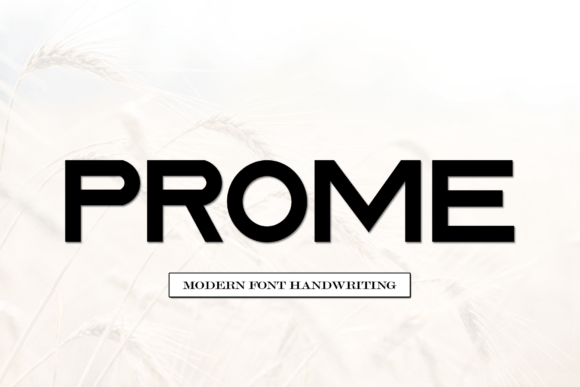
In a world brimming with digital monotony, Prome Font emerges as a beacon of creativity, a font family that breathes life into your designs, transforming them into captivating expressions of individuality. Embrace Prome Font, the sans serif font that embodies the essence of retro charm, a font that transports you to an era of elegance and sophistication.
With its meticulously crafted curves and timeless appeal, Prome Font is the perfect choice for those seeking a font that speaks to their artistic soul. Its versatility extends far beyond mere aesthetics; Prome Font is a storyteller, a font that narrates tales of love, joy, and heartfelt emotions. Its delicate strokes evoke a sense of nostalgia, reminiscent of handwritten letters that carried the weight of secrets and dreams.
Allow Prome Font to grace your wedding invitations, imbuing them with an air of timeless romance. Let your thank-you cards blossom with gratitude, expressed in the elegant lines of Prome Font. Transform your quotes into profound statements, resonating with the depth of human experience. Create greeting cards that carry the warmth of your sentiments, adorned with the charm of Prome Font.
Logos and business cards take on a new level of sophistication when adorned with Prome Font. Its clean lines and understated elegance lend a touch of professionalism that commands attention without overpowering. Whether you seek to create designs that exude a vintage flair or infuse your contemporary creations with a touch of nostalgia, Prome Font is your steadfast companion.
Prome Font is not just a font; it's an experience. A font that ignites the imagination and opens the door to a world of creative possibilities. Step into the realm of Prome Font and let your designs flourish with elegance, charm, and a touch of retro magic.